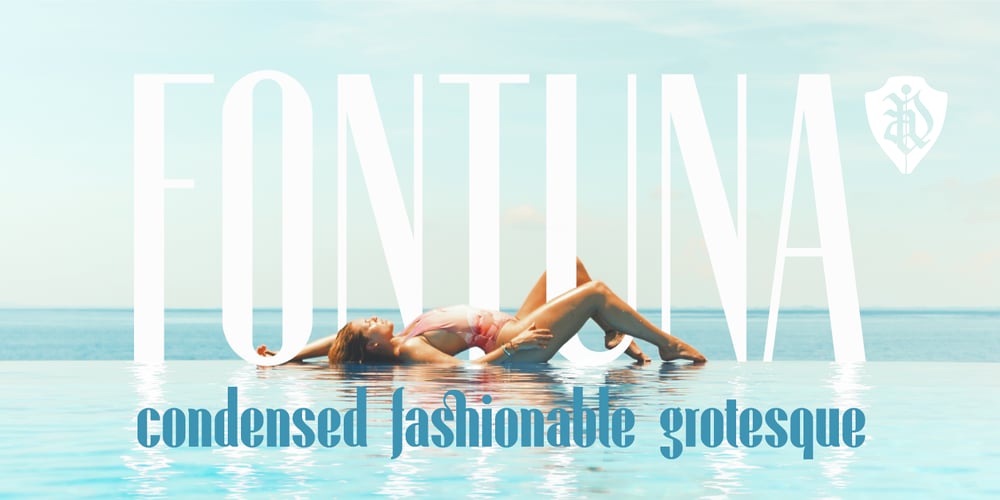
Fontuna Font Family was designed by Andriy Dykun and published by NREY. Fontuna contains 5 styles and family package options. Fontuna is an elegant, condensed, fashionable, grotesque sans-serif font family. It is inspired by typography in glossy fashion magazines. It perfectly represents modern and vintage aesthetics. The font is perfect for wedding elegant invitation cards, beauty and fashion package design, glossy posters. It has support for many European languages as well as Cyrillic!